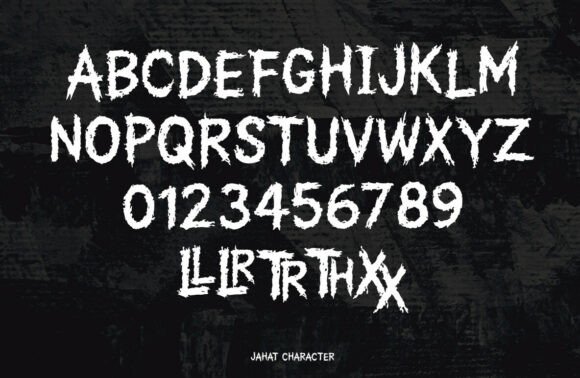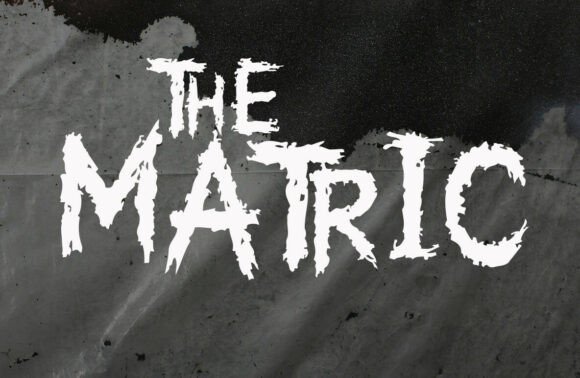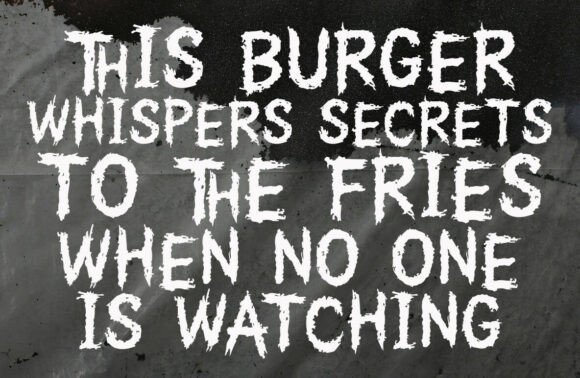
Introduction to Jahat Font
The Jahat font drips with dark energy, forged from broken strokes and fractured lines.
Every letter feels unstable, like itโs been torn apart and reassembled with malicious intent The jagged shapes and chaotic rhythm give it a menacing presence, perfect for horror posters, metal band logos, or any design that needs a touch of wickedness.
Jahat Font offers exceptional quality and versatility, making it a valuable addition to your design toolkit. Whether you’re creating for personal projects or commercial use, Jahat Font delivers professional results.